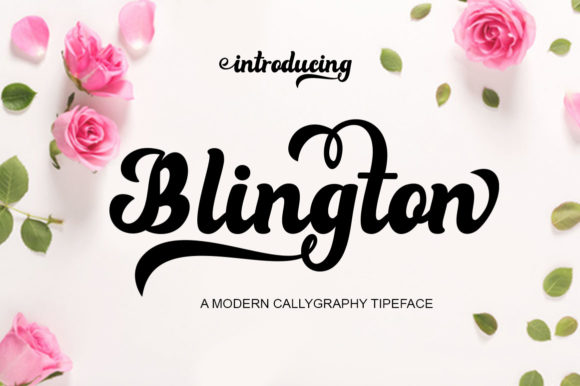
Blington Font
Blington Font is perfect for luxury jewelry branding, diamond advertisements, premium fashion campaigns, high-end cosmetics, glamorous event invitations, sophisticated nightclub marketing, luxury watch packaging, sparkle-themed designs, exclusive party promotions, and elegant lifestyle communications.
What makes Blington Font exciting is its dazzling glamour that captures the brilliant sparkle of precious gems and luxury lifestyle through brilliantly crafted letterforms. This glamorous typeface combines diamond-like precision with sophisticated elegance, creating a personality that communicates luxury, brilliance, and genuine premium quality. The font's sparkling character and glamorous appeal make it perfect for luxury brands seeking to evoke the mesmerizing beauty of precious stones and the sophisticated allure of high-end lifestyle experiences.
The Blington Font family includes Regular, Bold, Light, Medium, Sparkle, Glamorous, Condensed, and Diamond variants. Each weight maintains the font's brilliant character while providing comprehensive typographic flexibility for luxury brand identity systems and glamorous design applications across diverse premium platforms.
Whether you're developing jewelry brand identities, creating luxury marketing materials, designing premium event invitations, or building glamorous advertising campaigns, Blington Font delivers unmatched sparkling appeal and diamond sophistication. Its brilliant presence makes it perfect for jewelry stores, luxury fashion brands, premium beauty companies, and glamorous venues seeking authentic luxury representation.
The font's brilliant proportions and sparkling details create a dazzling reading experience that captures the mesmerizing beauty of precious gems and luxury craftsmanship. Each letterform has been carefully crafted to convey premium quality, sophisticated glamour, and brilliant excellence that resonates with affluent audiences seeking luxury experiences and premium products.
This versatile typeface excels in luxury environments, offering designers the brilliance needed for comprehensive glamorous brand communication strategies. The extensive character set includes sparkling alternates, glamorous ligatures, and diamond symbols for luxury market positioning and premium brand storytelling.
Embrace the power of sparkling design that celebrates luxury glamour and authentic diamond-like excellence.